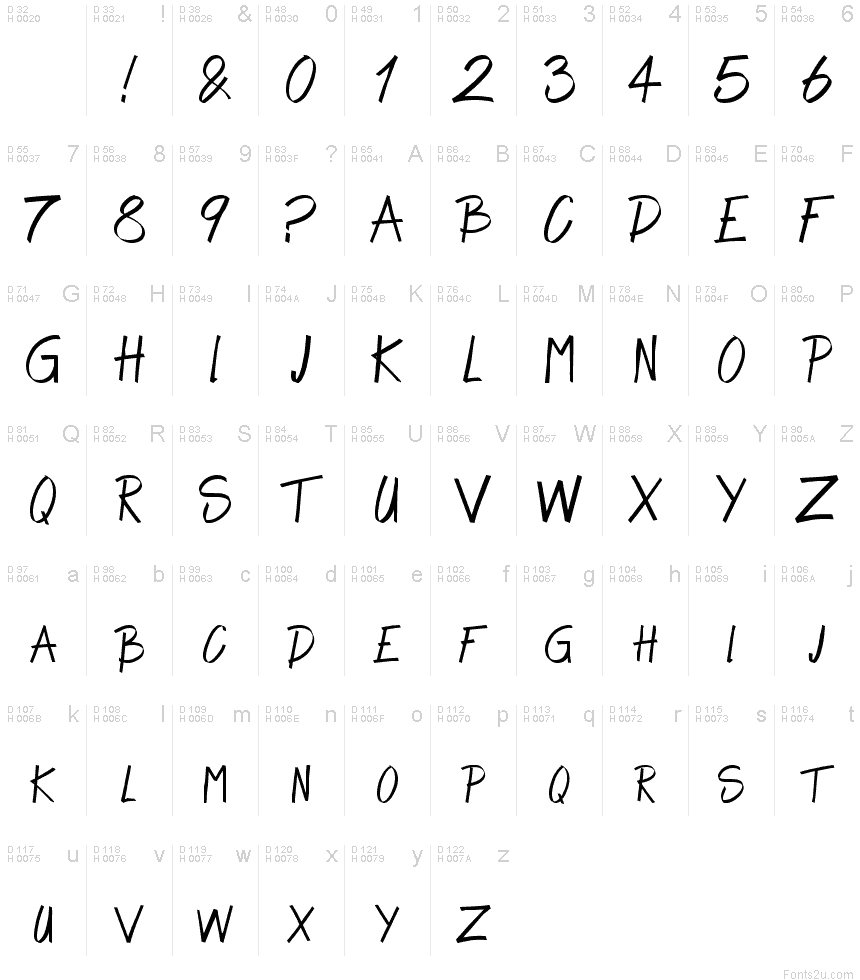
Alpha Thin
Alpha Thin font by Beeline-Fonted by Lime is a free handwritten typeface with a wiry, high-energy streak running through every letter. The tall, slightly tilted forms and quick, brushlike strokes feel like they were dashed off in a single confident motion, giving the Alpha family a restless, modern edge. It’s legible but never stiff, with just enough roughness in the curves and angles to keep text feeling alive rather than polished to perfection.
Using Alpha Thin, you get handwriting that feels bold and spontaneous without turning into chaos, which works beautifully for posters, zines, edgy branding, album covers, social media graphics, and packaging aimed at younger audiences. This free font holds its character best at medium to large sizes, where the sharp angles can breathe. Try pairing Alpha Thin with a clean geometric sans for body text to let its scratchy, hand-drawn personality lead the visual hierarchy.